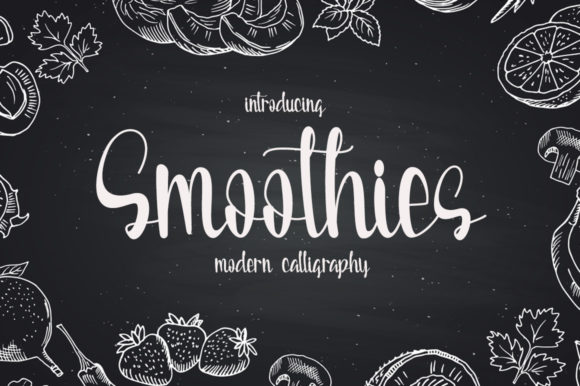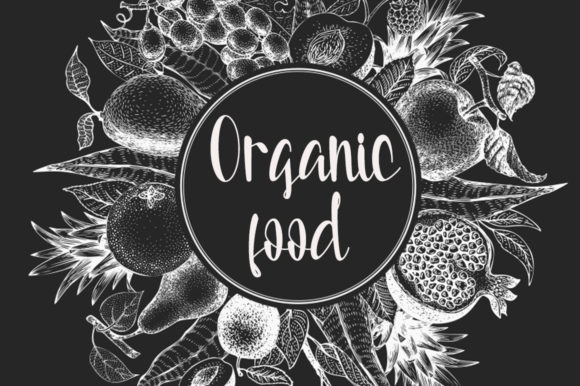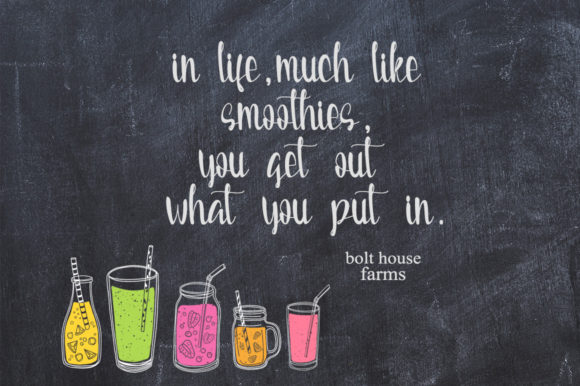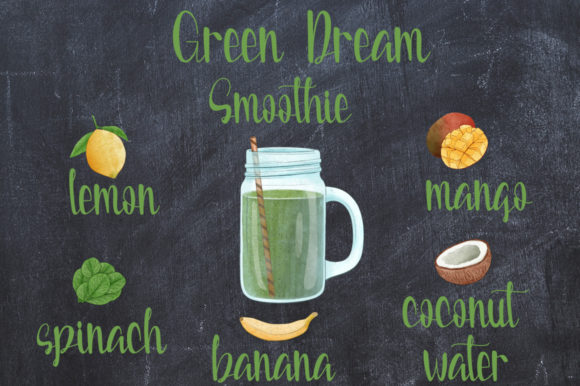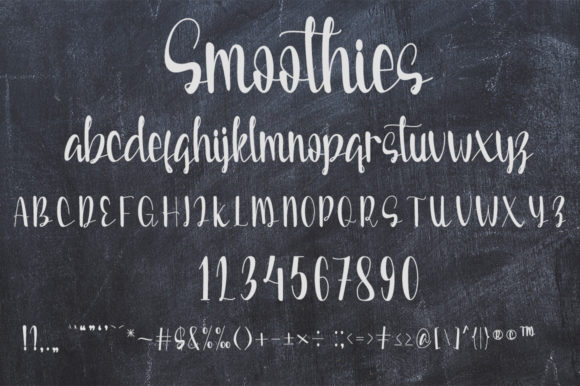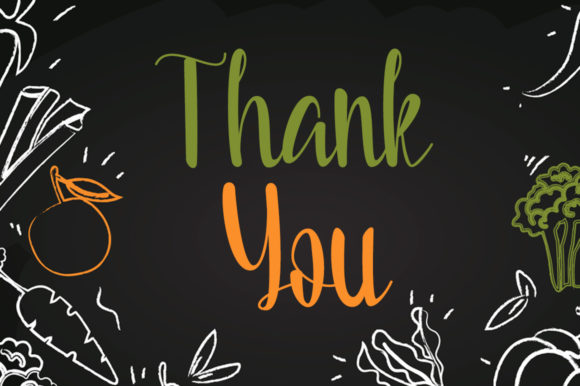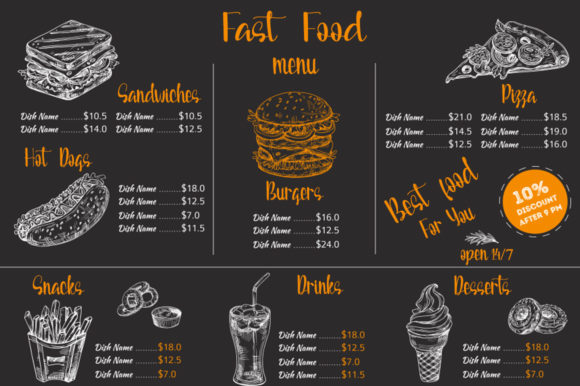
Smoothies Font
About Smoothies Font
Smoothies, a font that embodies elegance and charm, is a true masterpiece of handwritten design. With meticulous attention to detail, this font seamlessly blends classic calligraphy with a contemporary twist, creating a perfect harmony that will undoubtedly make it your new favorite.
At first glance, Smoothies captures your attention with its intricate yet effortless strokes. Each letter is a work of art, carefully crafted to maintain the grace of calligraphy while infusing a sense of modernity and freshness. The result is a font that stands out as a timeless creation that can easily adapt to a variety of design contexts.
The beauty of Smoothies lies in its versatility. Whether you’re working on branding, invitations, logos, or any other design project, this font brings a touch of refinement that elevates your work to new heights. Its smooth lines and sophisticated curves are a testament to the thought and care that went into its creation, making it a perfect choice for those who appreciate both tradition and innovation.
Smoothies has the power to transform your projects into visual masterpieces. Imagine it gracing the cover of a luxury wedding invitation, setting the tone for an elegant and unforgettable event. Envision it as the cornerstone of a logo, representing a brand that values both heritage and contemporary appeal. Visualize it adding a touch of sophistication to quotes and messages, capturing the attention of readers with its timeless beauty.
What sets Smoothies apart is its ability to strike a balance between the past and the present. It pays homage to the art of calligraphy while seamlessly integrating modern design elements, resulting in a font that feels both familiar and fresh. This duality makes it suitable for a wide range of applications, from formal to casual, from traditional to cutting-edge.
Smoothies’ design is a testament to its craftsmanship. The way it maintains its elegance while embracing modernity showcases the careful consideration that went into each curve and line. Its cohesive and consistent style ensures that every character flows harmoniously with the next, creating a visually pleasing and cohesive end result.
Fall in love with Smoothies, and watch as it breathes life into your projects. This font is not just a collection of letters; it’s an embodiment of sophistication and artistry. Its calligraphic influences, paired with a contemporary touch, create a visual symphony that resonates with anyone who encounters it.
As you incorporate Smoothies into your designs, you’ll witness its ability to enhance and elevate your work. It becomes a versatile tool in your creative arsenal, capable of conveying a wide range of emotions and moods. Its exquisite beauty and timeless appeal ensure that it will remain a favorite for years to come.
So, embark on a journey of design excellence with Smoothies as your companion. Let its delicate yet impactful presence guide you as you craft invitations, logos, quotes, and more. Immerse yourself in the world of sophistication and modernity that Smoothies brings to your projects, and experience firsthand the transformative power of an exquisite handwritten font.